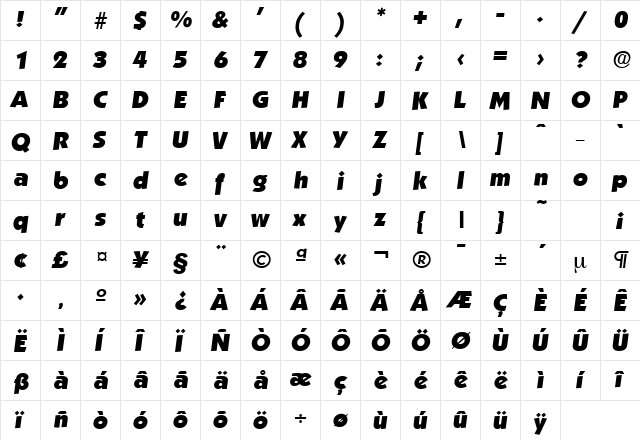
Koblenz-Serial-Heavy RegularItalic
Design Context for Koblenz-Serial-Heavy Typeface
Koblenz-Serial-Heavy is a composed and adaptable typeface that performs quietly and consistently across a wide range of design contexts. The slanted form adds forward momentum and visual energy.
Pro Tip: Try Koblenz-Serial-Heavy for annotation and caption copy alongside an upright companion — the contrast in angle creates a dynamic but ordered typographic system.